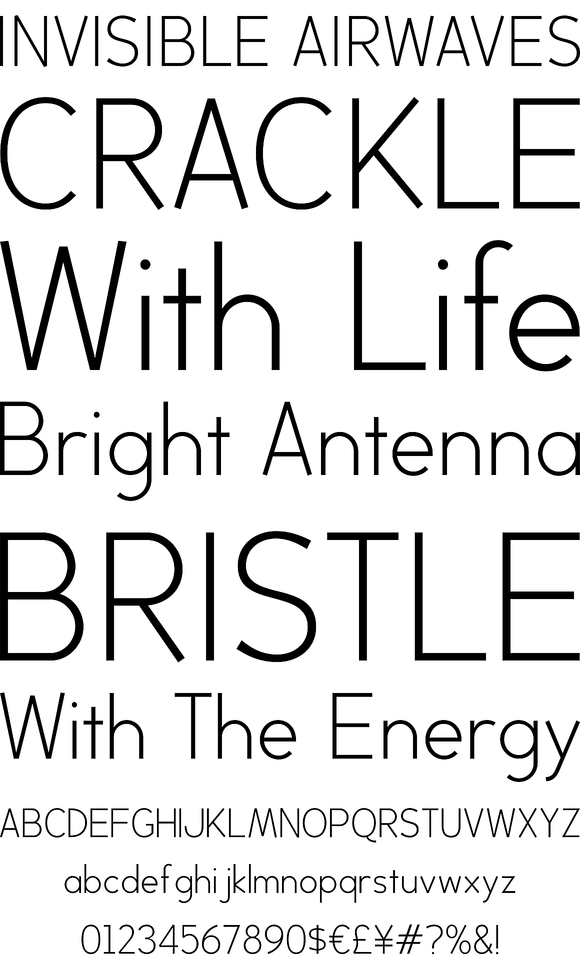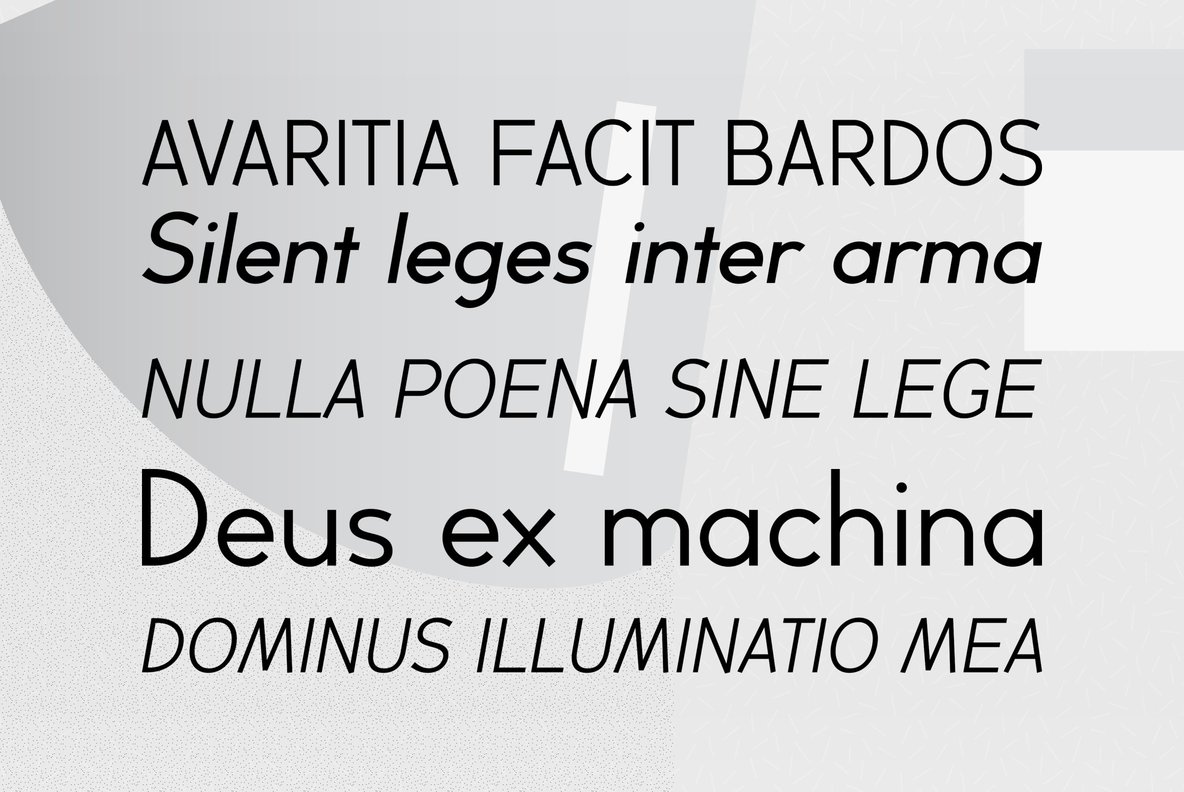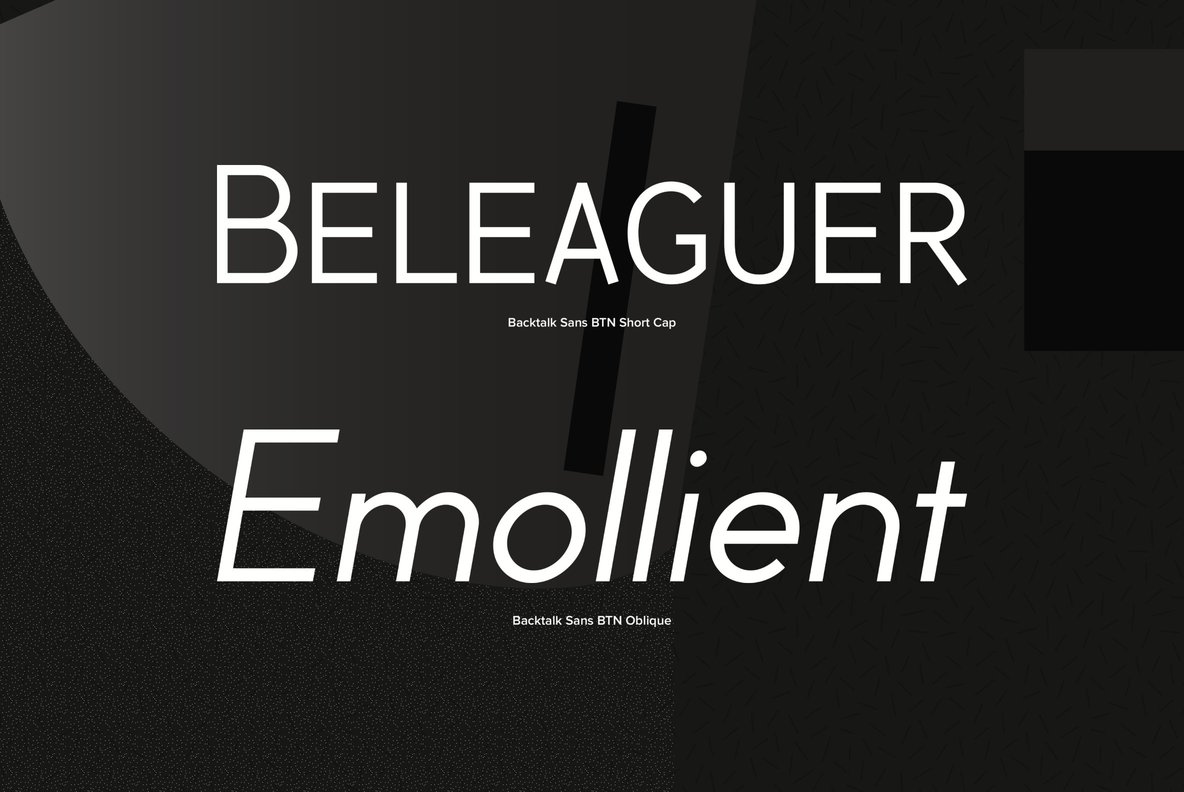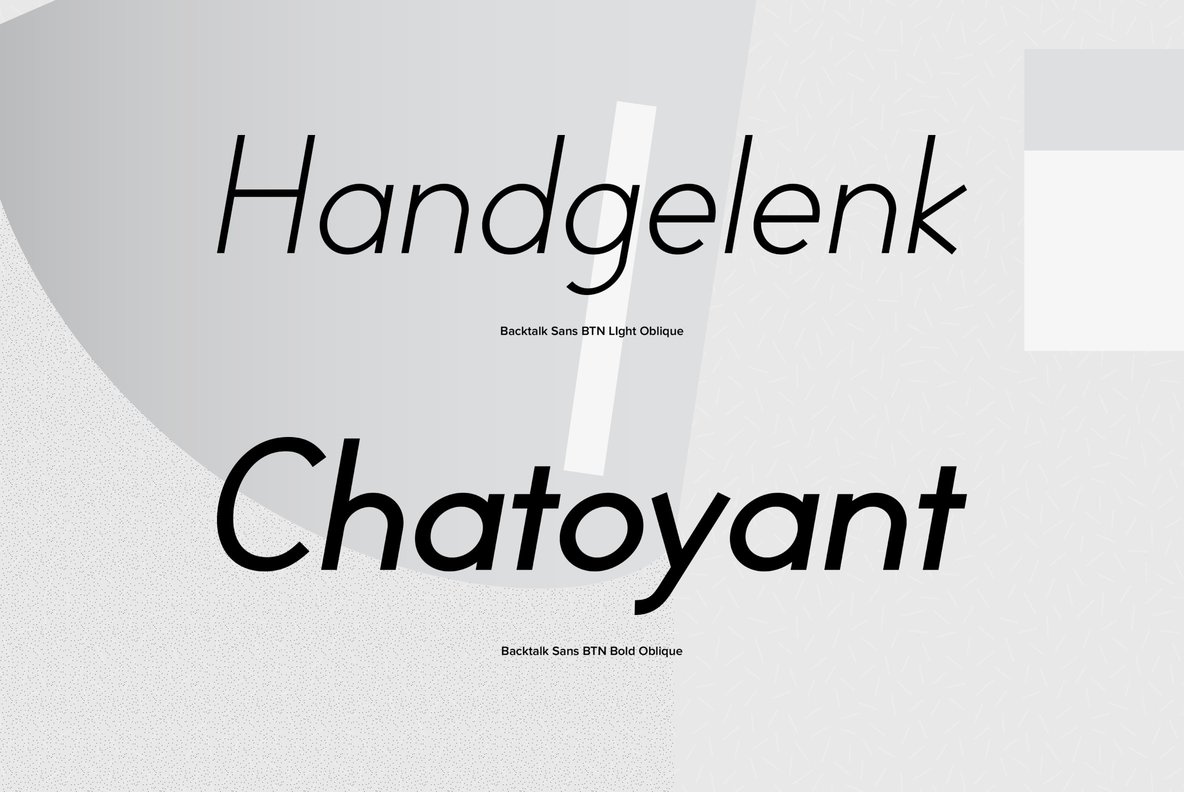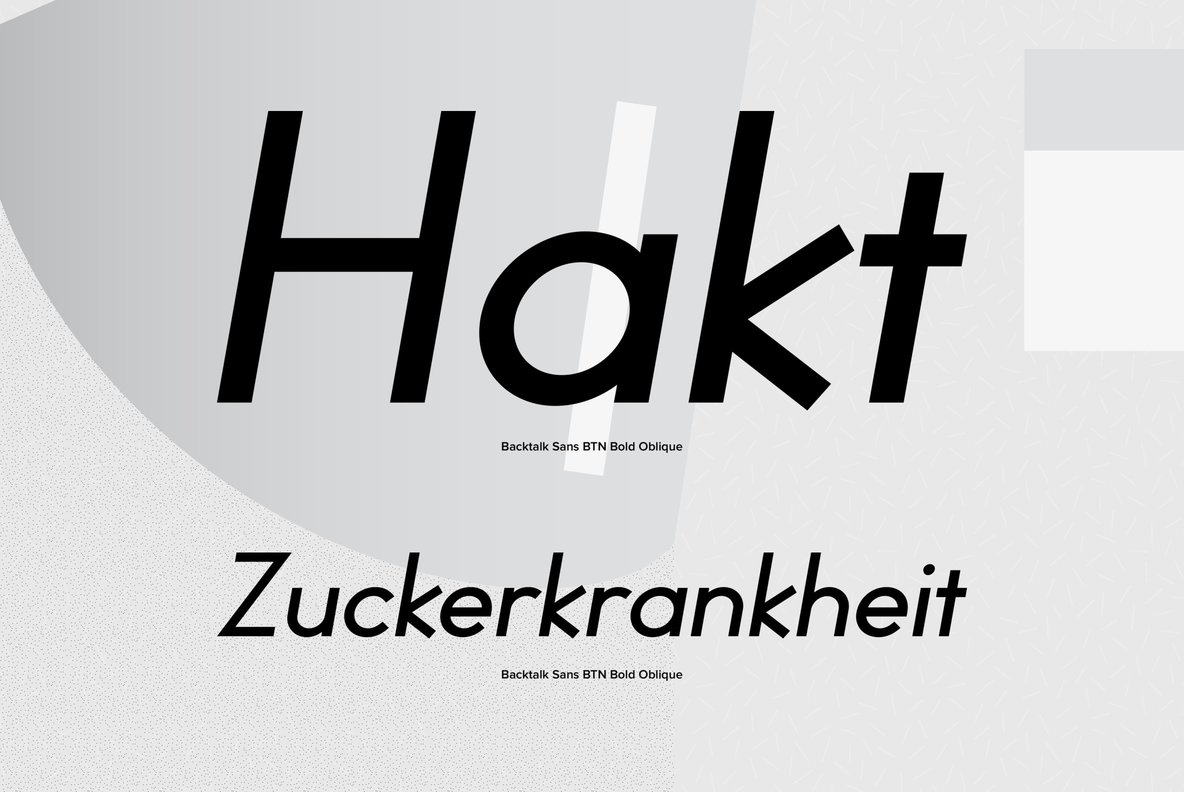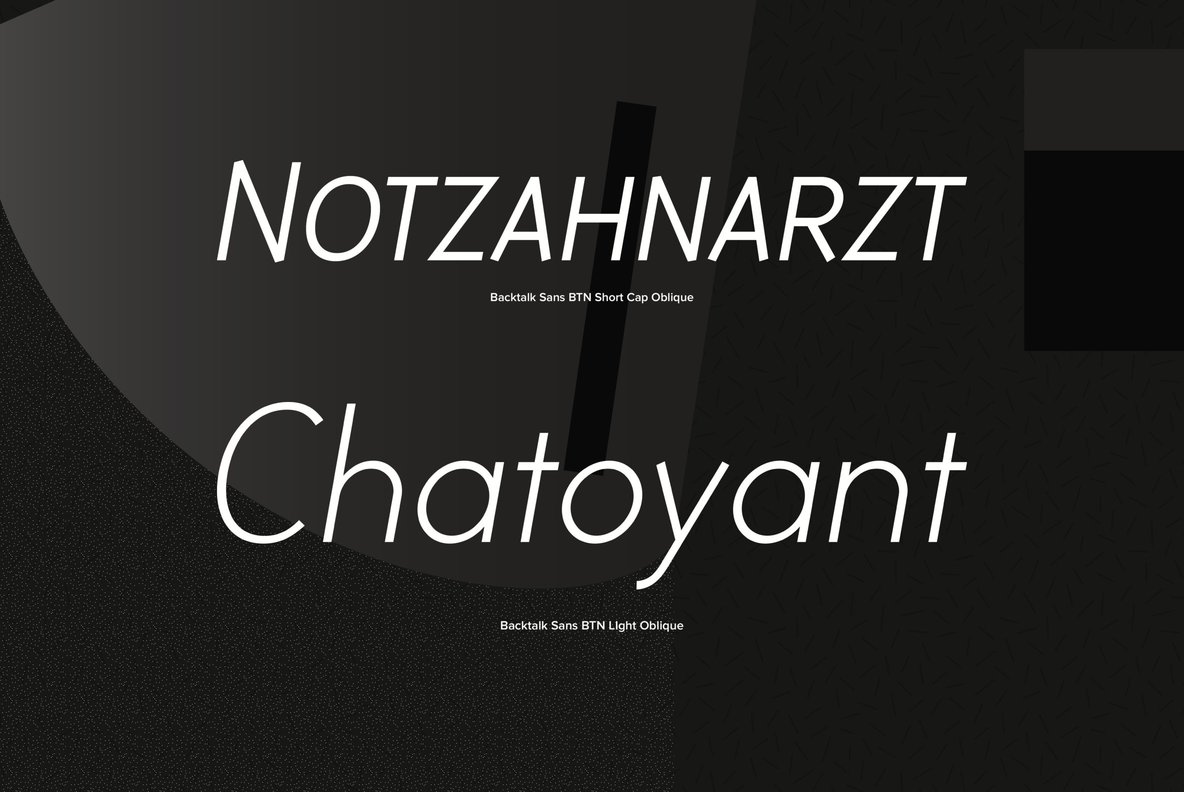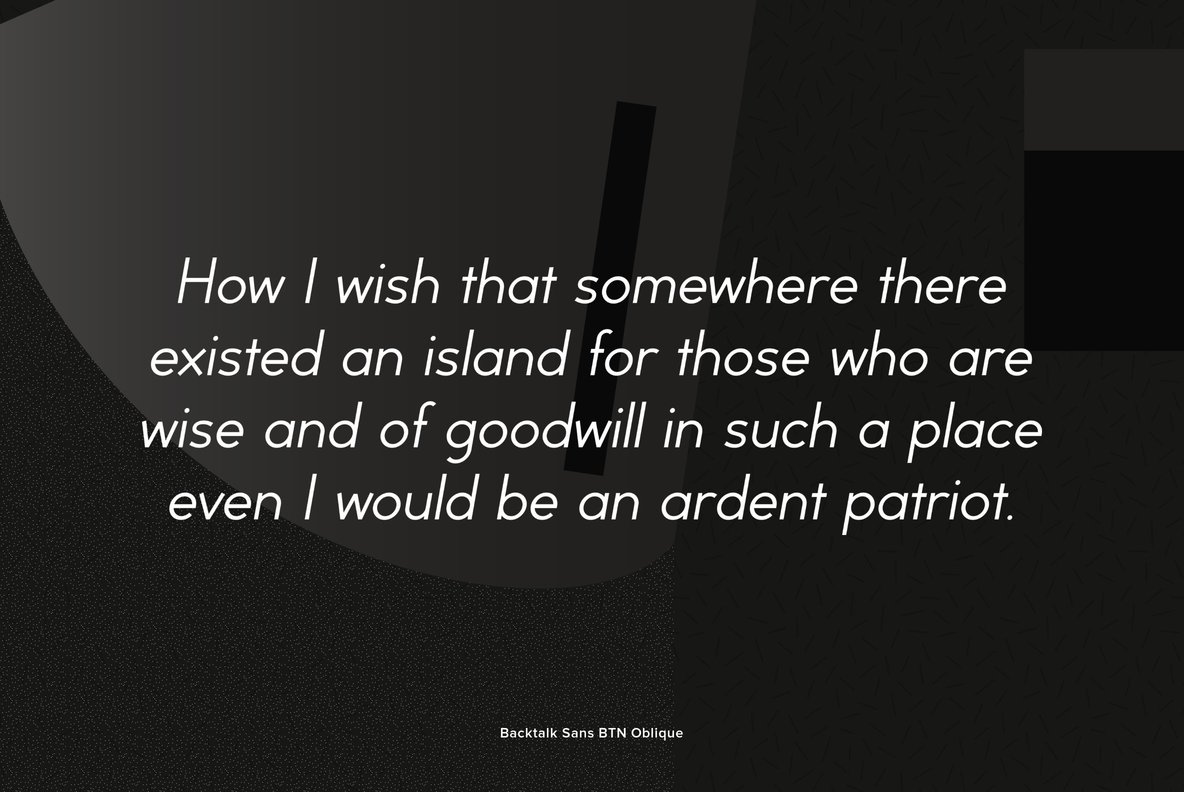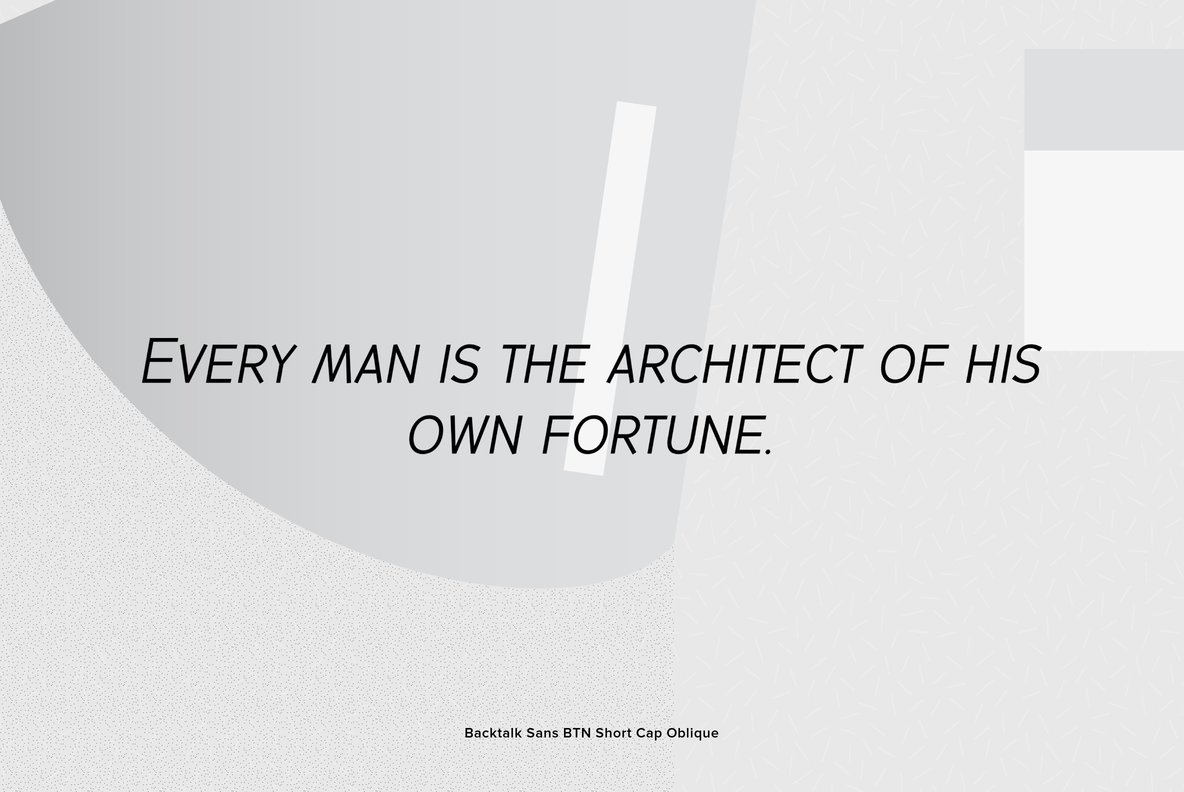
Backtalk Sans is a clean geometric font family that takes a clean simple straight-forward approach to legibility. Inspired by humanist and geometric letterforms, the Backtalk family creates its own honesty with a hint of personality.